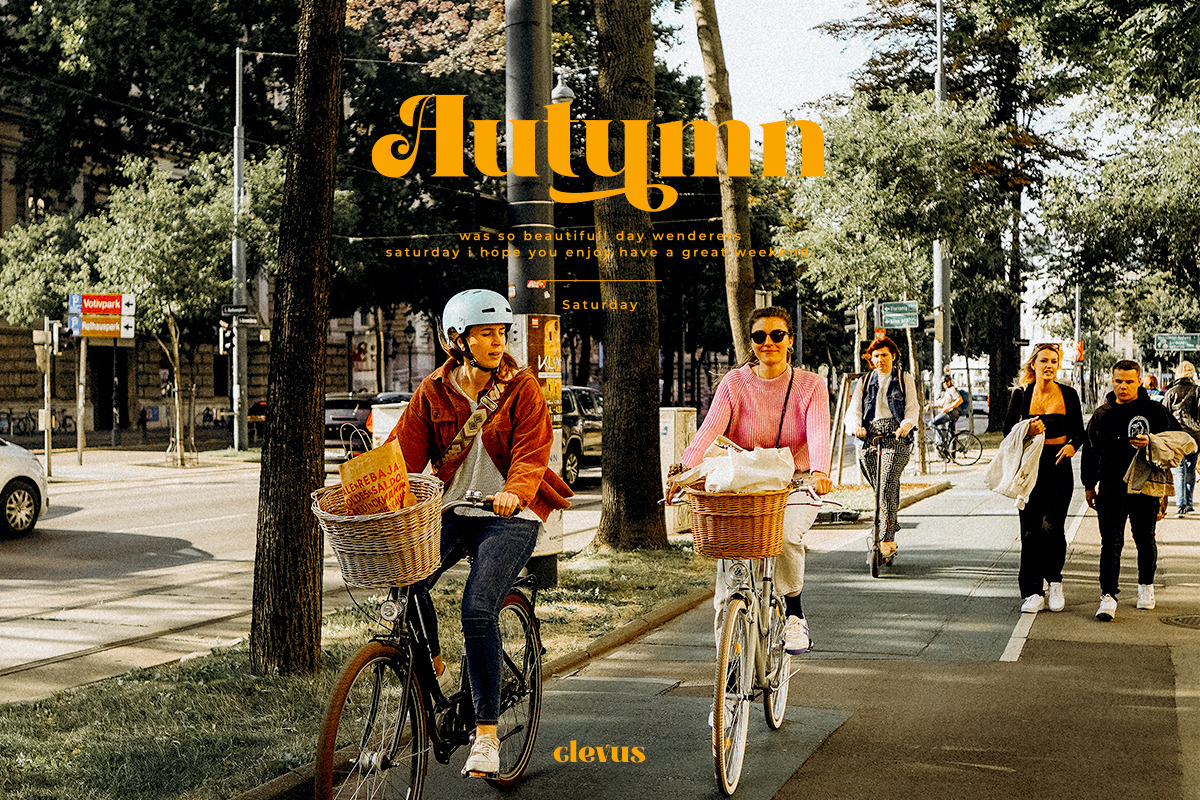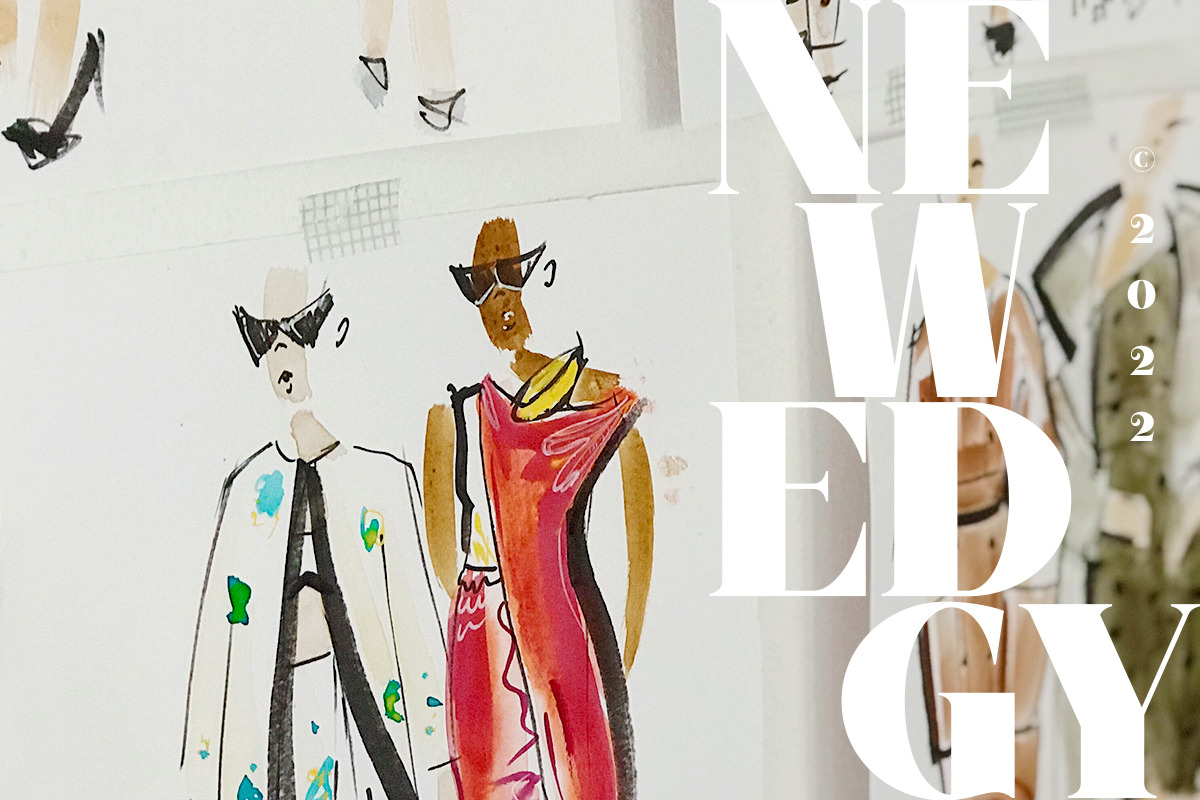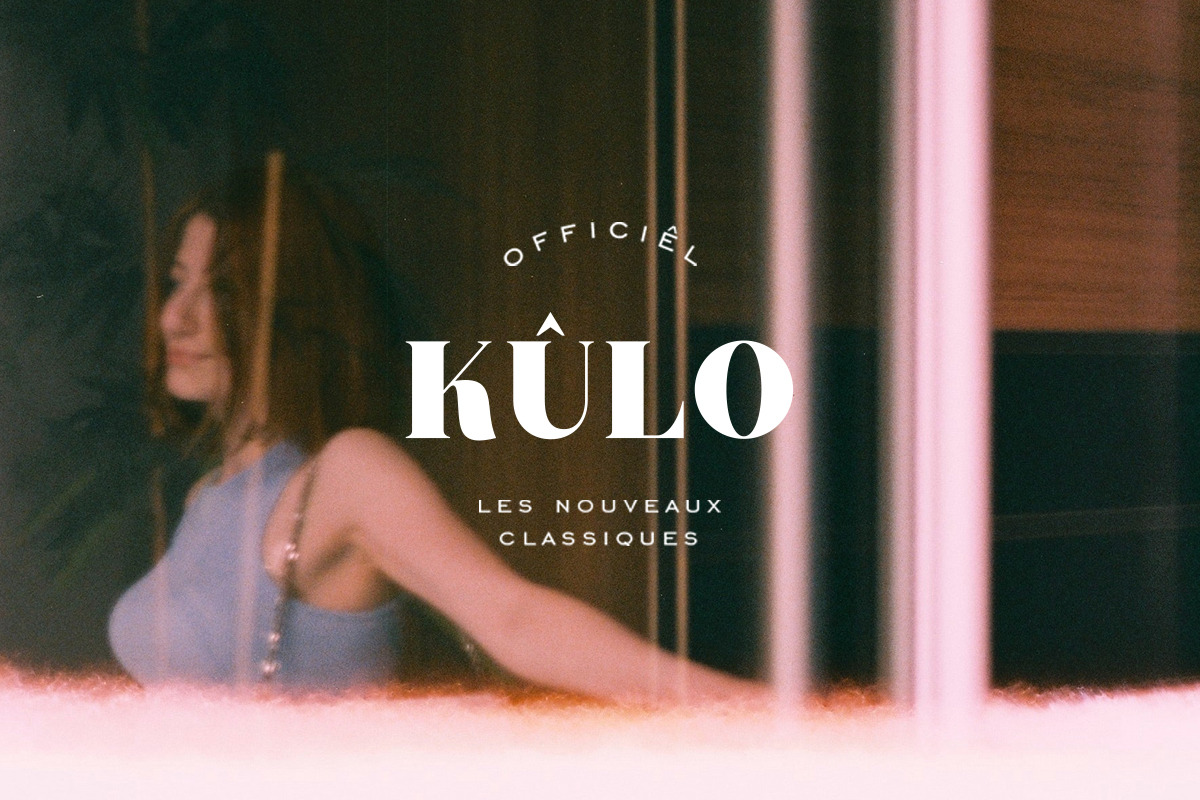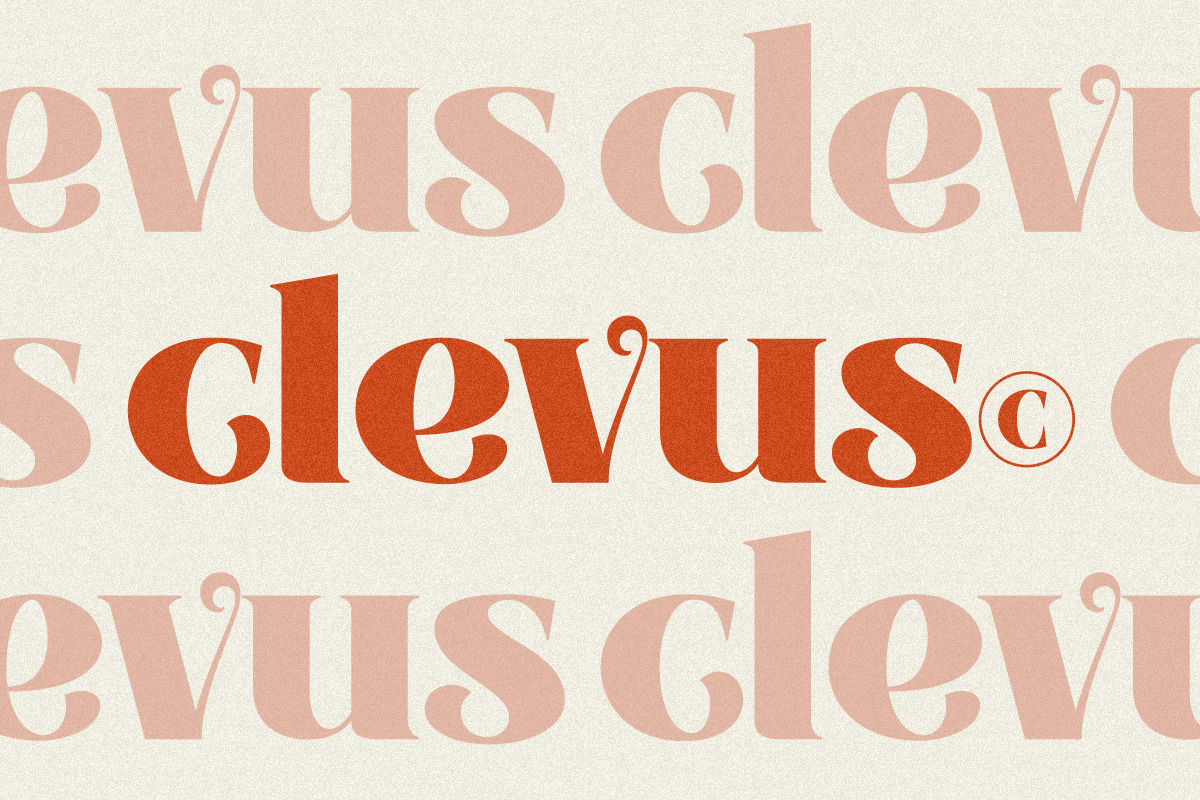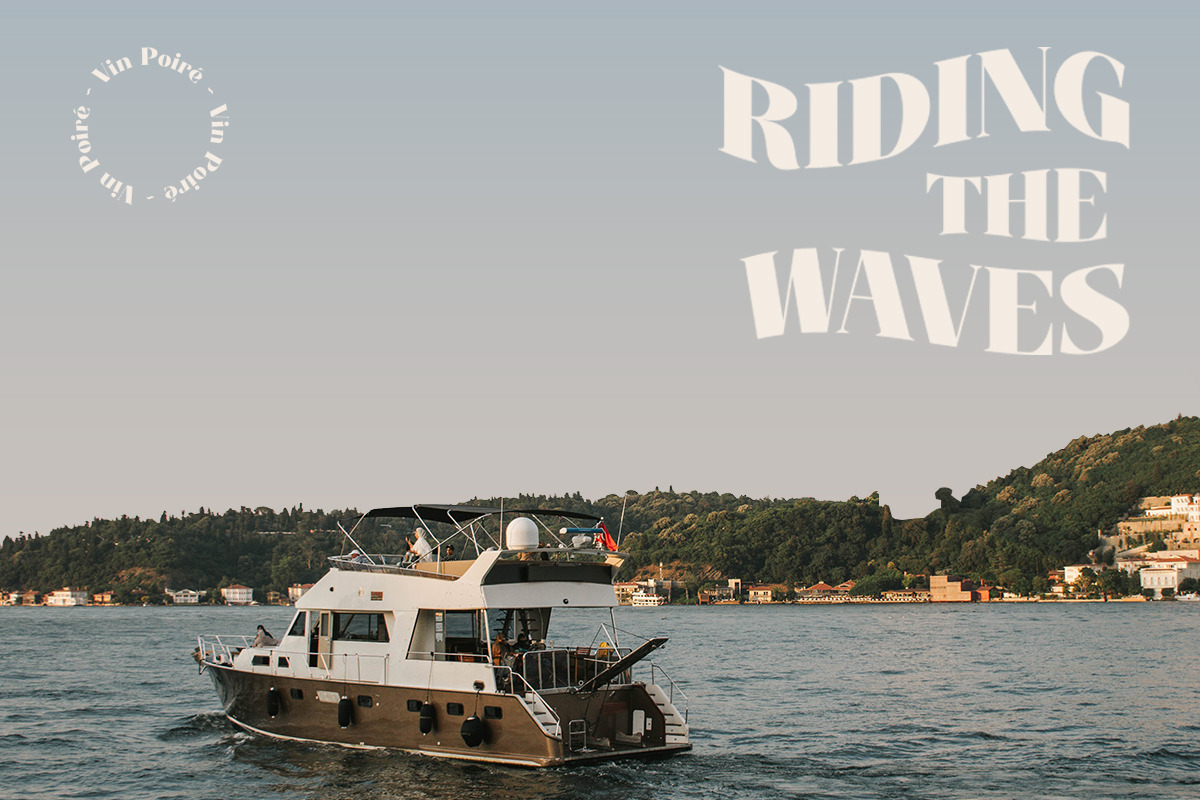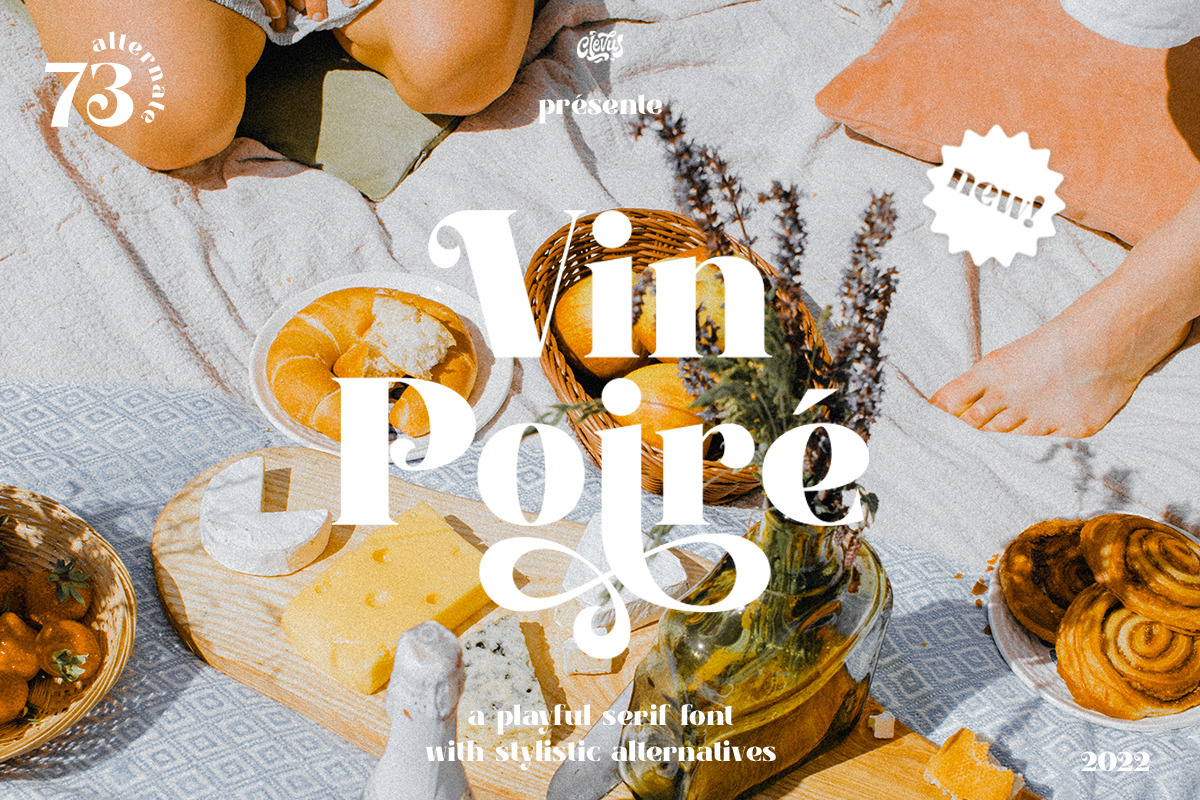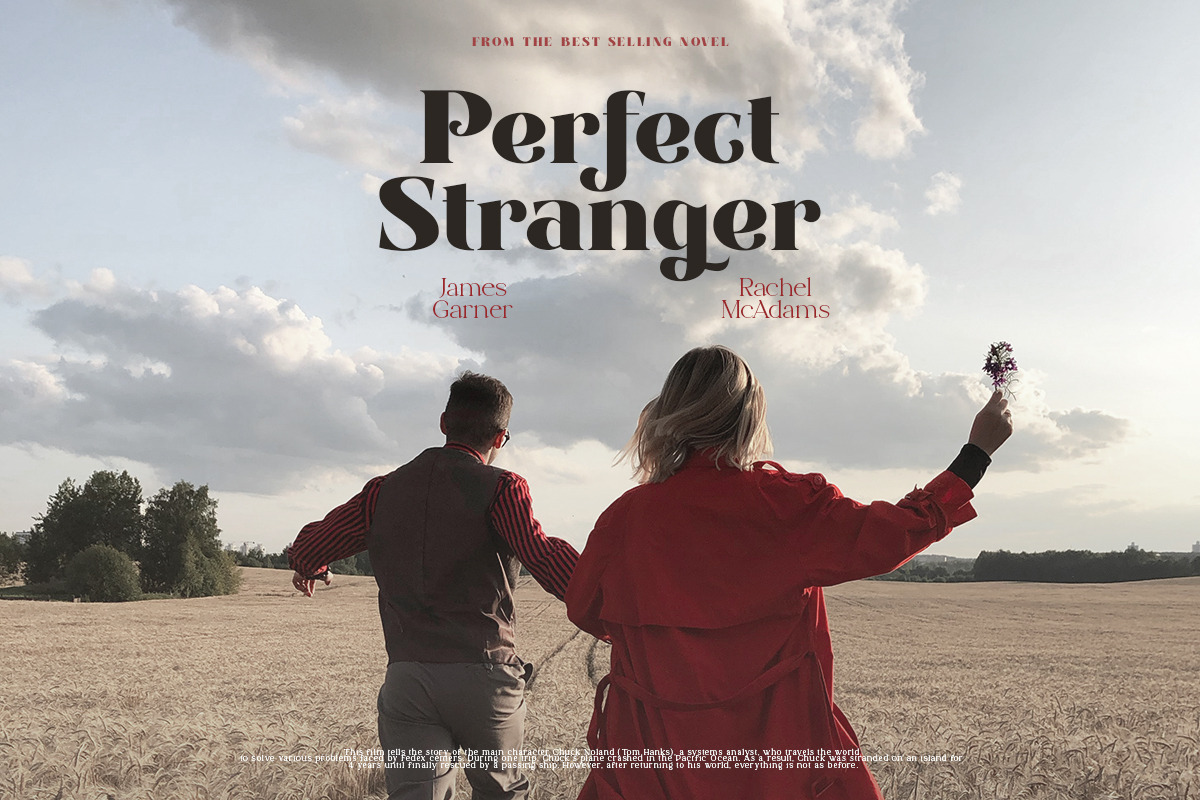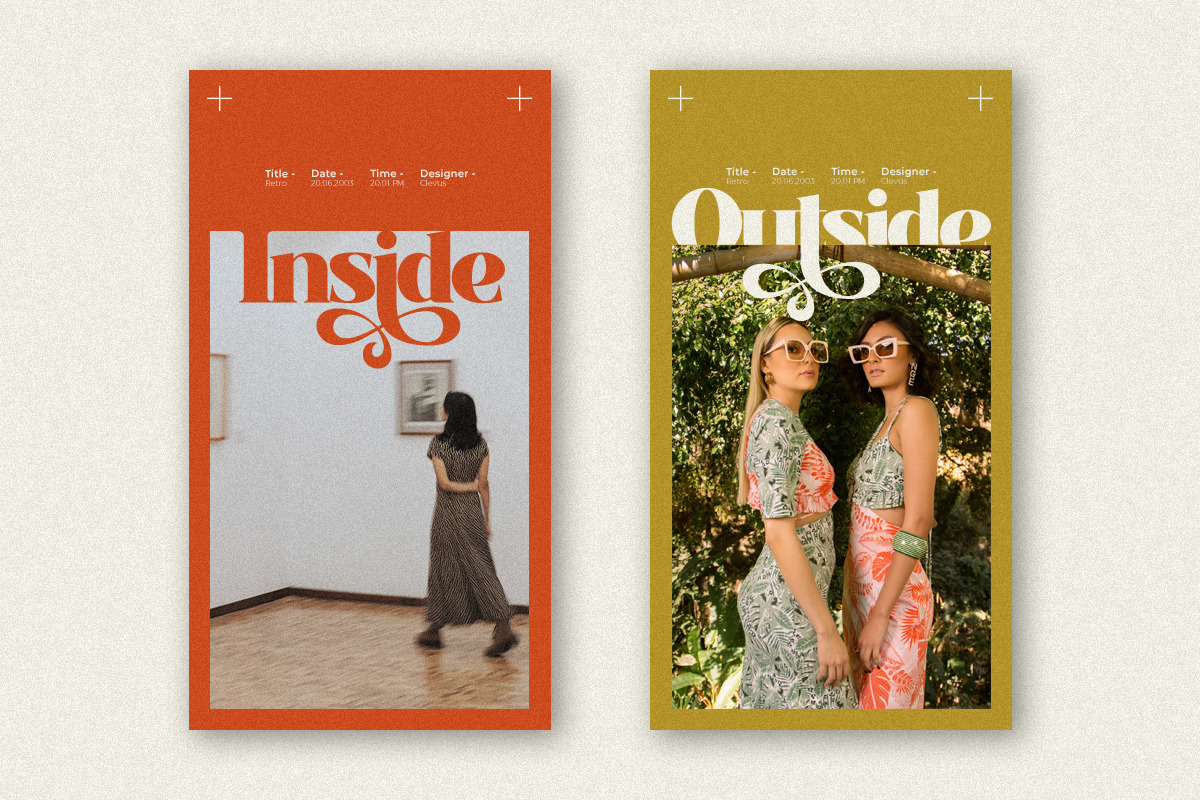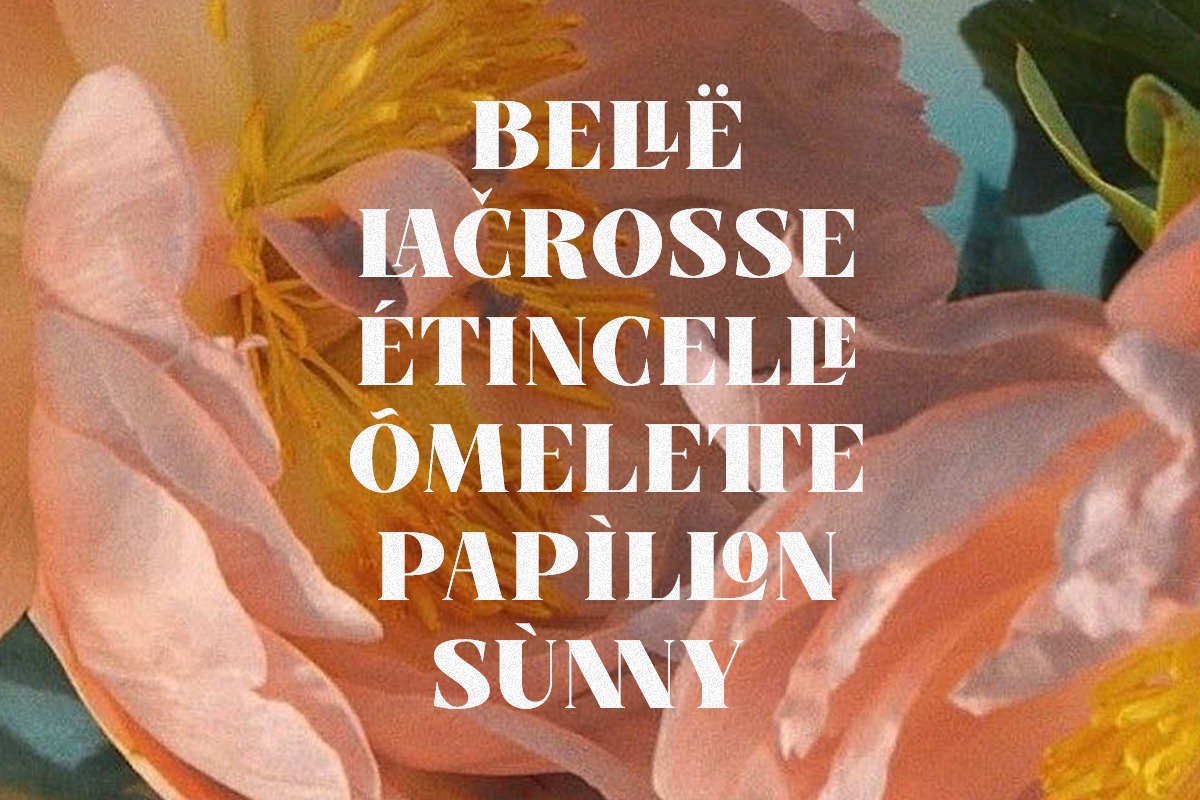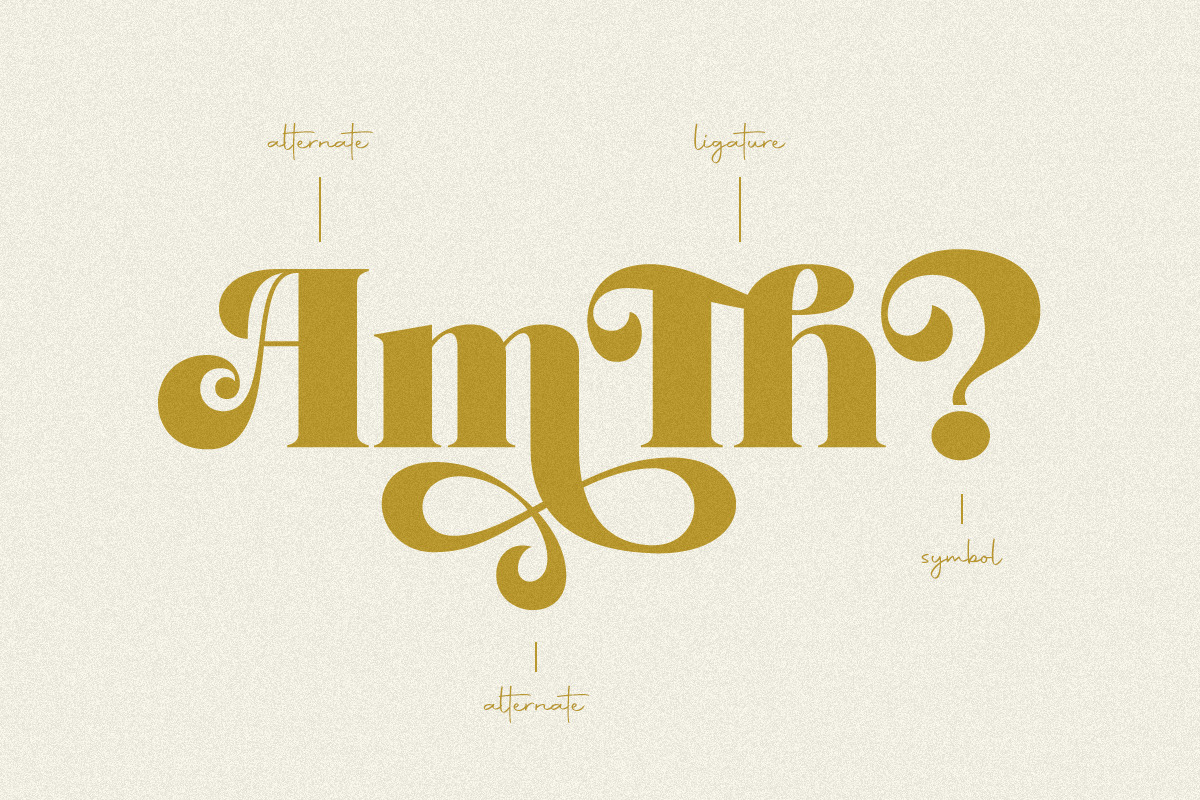
VinPoiré - Vintage font
Proudly present VinPoiré Typeface inspired by 1960s style.
VinPoiré equipped with several OpenType. Have 73 unique alternates and ligatures. Comes with alternatives and ligatures, and helps to create stunning logos, quotes, posts, blog posts, branding projects, magazine imagery, wedding invitations, and much more.
- Lettres, numbers, symbols, and punctuation
- 73 alternates and ligatures